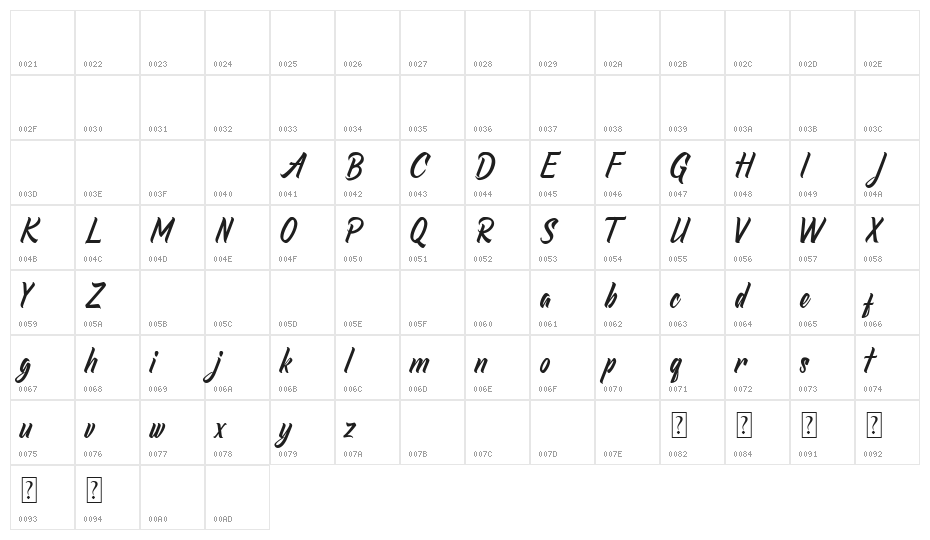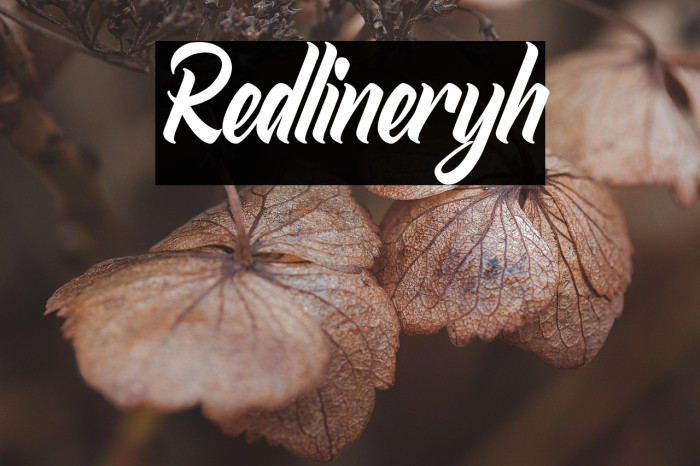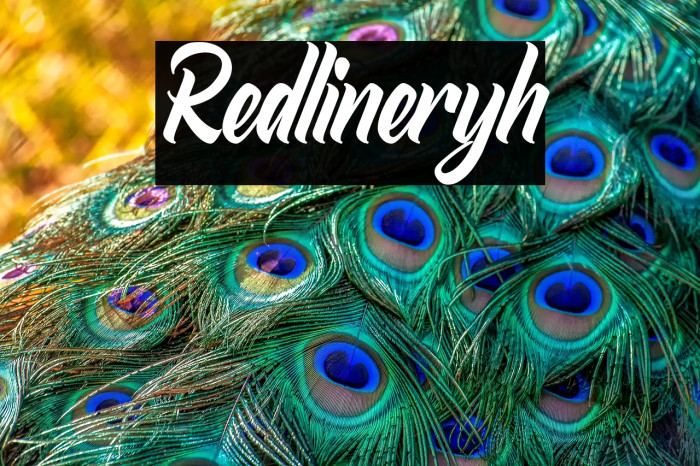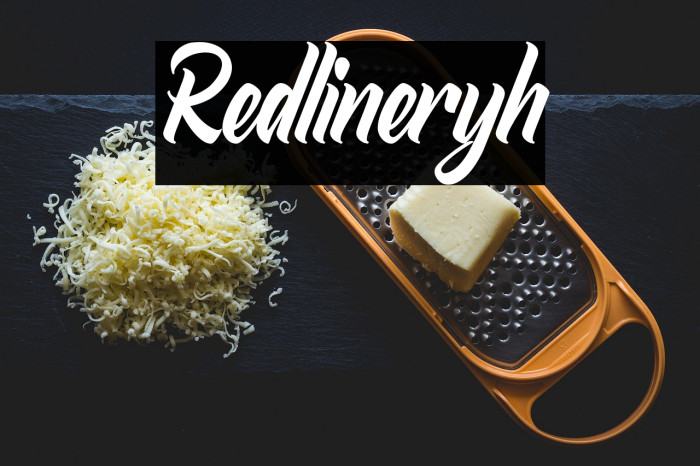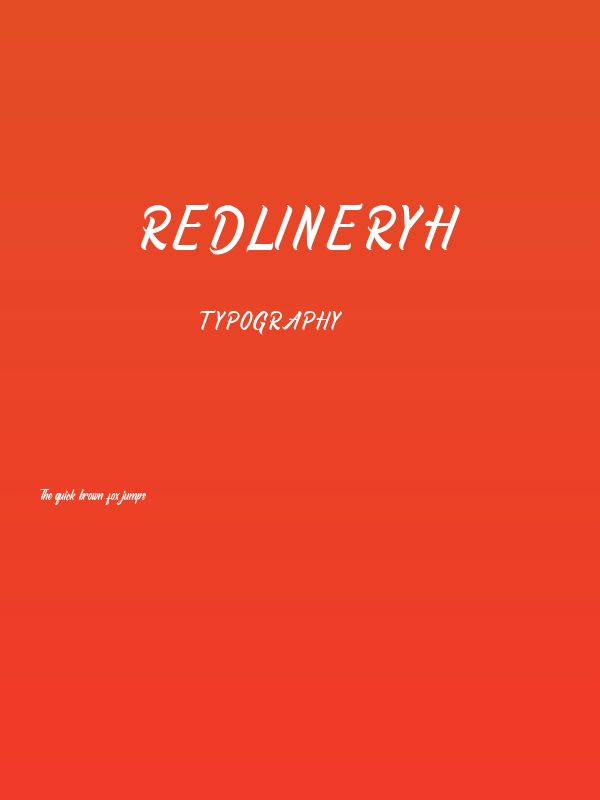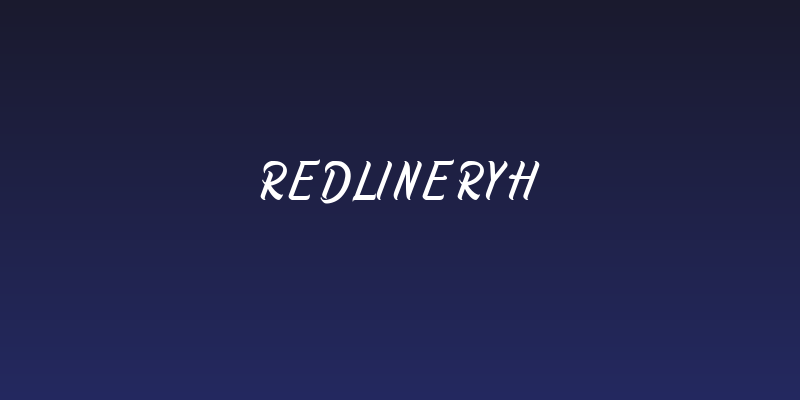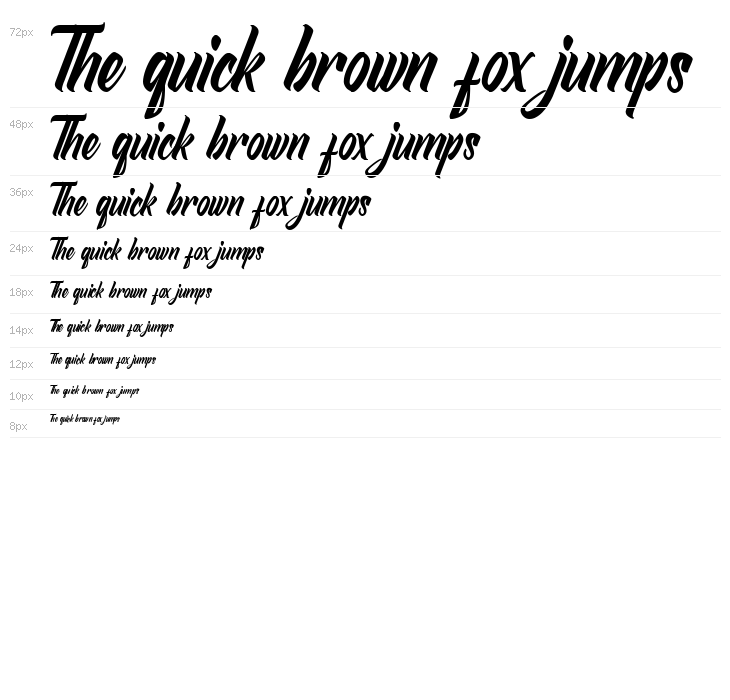
Redlineryh Font
Redlineryh Description
This font features a dynamic and flowing script style, characterized by its elegant and slightly slanted letterforms. The uppercase letters exhibit a sophisticated flair with smooth curves and pointed edges, while the lowercase letters maintain a consistent rhythm with a bold presence. The overall design is reminiscent of traditional calligraphy, offering a modern twist with its bold strokes and high contrast. The font's unique personality is enhanced by its artistic flair, making it suitable for creative and expressive projects.
Overall StyleModern, Decorative
Use CaseLogos, Headlines, Invitations
Proposed ProjectsIdeal for branding, invitations, greeting cards, and artistic projects that require a touch of elegance and creativity.